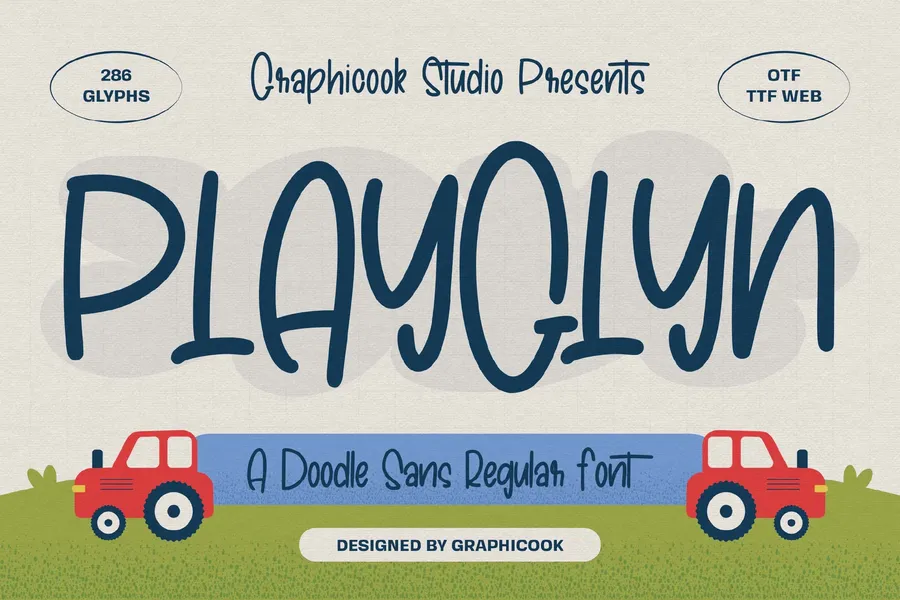
Playgyn is a hand-drawn font with unique, asymmetrical letterforms that create a fun, friendly, and childlike feel. Great for designs aimed at children.
It is perfect for headlines, logotypes, magazines, packaging, quotes, movies, games, cover albums, book covers, and flyers, it’s a perfect solution for creating eye-catching designs that stand out in any context.